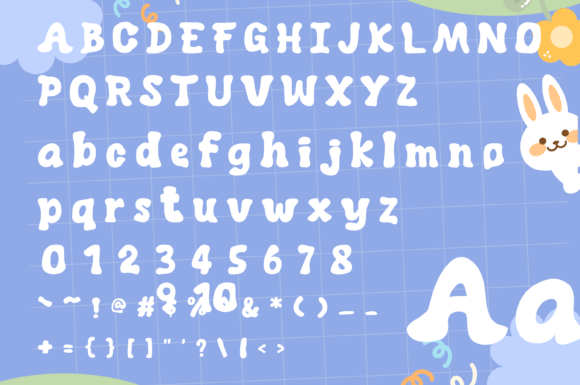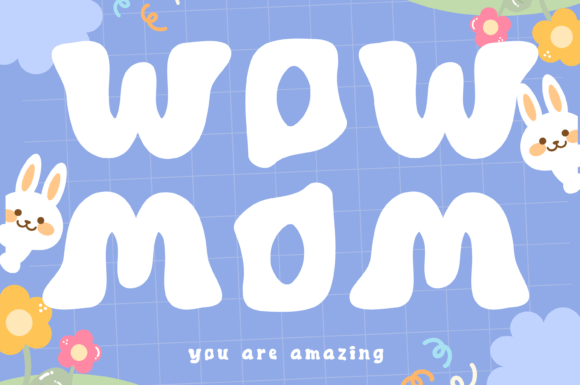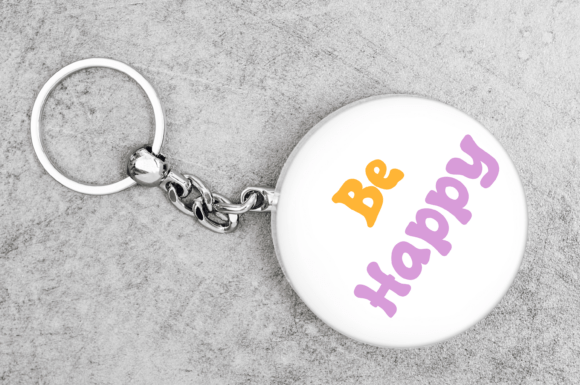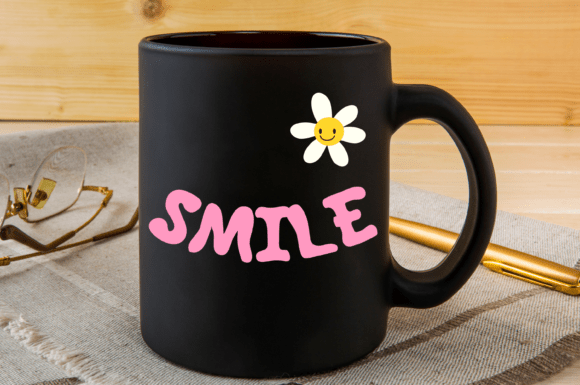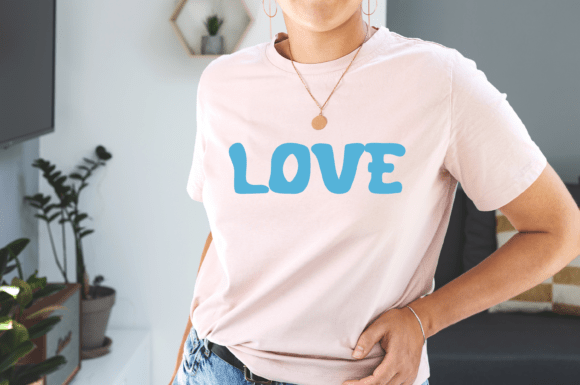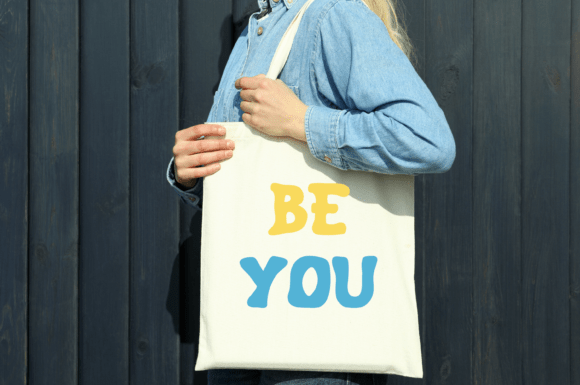
Introducing Choco Bubble Pop Font: The Sweetest Addition to Your Design Collection
Are you looking for a font that can add a touch of playfulness and sweetness to your designs? Look no further than Choco Bubble Pop Font! This bold, rounded display font is perfect for creating fun and engaging visuals that are sure to capture the attention of your audience. In this article, we’ll dive into the features and benefits of Choco Bubble Pop Font, and explore how it can be used to elevate your designs.
The Choco Bubble Pop Font Difference
Choco Bubble Pop Font is a unique and eye-catching font that is sure to make your designs stand out. Its thick, bubble-like letters give off a sweet and friendly vibe, making it ideal for a variety of design applications. The font’s soft curves and chunky style create a sense of warmth and approachability, while remaining highly readable. This makes it perfect for use in titles, headings, and other display text.
Perfect for Sweet and Fun Designs
Choco Bubble Pop Font is specifically designed to evoke a sense of fun and playfulness. Its bold and rounded style makes it perfect for use in designs related to candy, children’s products, bakery packaging, and party invitations. The font’s sweet and friendly vibe is sure to appeal to a wide range of audiences, from kids to adults. Whether you’re creating a logo, brochure, or social media graphic, Choco Bubble Pop Font is sure to add a touch of whimsy and delight.
Key Features of Choco Bubble Pop Font
- Bold and Rounded Style: Choco Bubble Pop Font features a bold and rounded style that is perfect for creating eye-catching displays.
- Thick, Bubble-Like Letters: The font’s thick, bubble-like letters give off a sweet and friendly vibe, making it ideal for candy brands, children’s products, and more.
- Soft Curves and Chunky Style: The font’s soft curves and chunky style create a sense of warmth and approachability, while remaining highly readable.
- Highly Readable: Despite its bold and playful style, Choco Bubble Pop Font remains highly readable, making it perfect for use in titles, headings, and other display text.
Design Applications for Choco Bubble Pop Font
Choco Bubble Pop Font is a versatile font that can be used in a wide range of design applications. Here are a few ideas to get you started:
- Candy Brands: Choco Bubble Pop Font is perfect for candy brands looking to add a touch of sweetness to their packaging and marketing materials.
- Children’s Products: The font’s playful and fun style makes it ideal for use in designs related to children’s products, such as toys, games, and educational materials.
- Bakery Packaging: Choco Bubble Pop Font is a great fit for bakery packaging, adding a touch of warmth and approachability to labels, wrappers, and other packaging materials.
- Party Invitations: The font’s fun and playful style makes it perfect for use in party invitations, adding a touch of excitement and anticipation to your designs.
- Digital Graphics: Choco Bubble Pop Font can also be used to create fun and engaging digital graphics, such as social media posts, blog headers, and more.
Tips for Using Choco Bubble Pop Font
Here are a few tips for getting the most out of Choco Bubble Pop Font:
- Use it as a Display Font: Choco Bubble Pop Font is perfect for use as a display font, adding a touch of drama and emphasis to your designs.
- Pair it with a Simple Font: For body text, pair Choco Bubble Pop Font with a simple, easy-to-read font to create visual contrast and hierarchy.
- Experiment with Colors: Choco Bubble Pop Font looks great in a wide range of colors, so don’t be afraid to experiment and find the perfect hue for your design.
| Author | AchiArt |
Choco Bubble Pop Font is a fun and playful font that is sure to add a touch of sweetness to your designs. Its bold, rounded style and thick, bubble-like letters make it perfect for use in a wide range of design applications, from candy brands to children’s products and more. With its soft curves and chunky style, Choco Bubble Pop Font is sure to create a sense of warmth and approachability, while remaining highly readable. So why wait? Download Choco Bubble Pop Font today and start creating your own sweet and engaging designs!